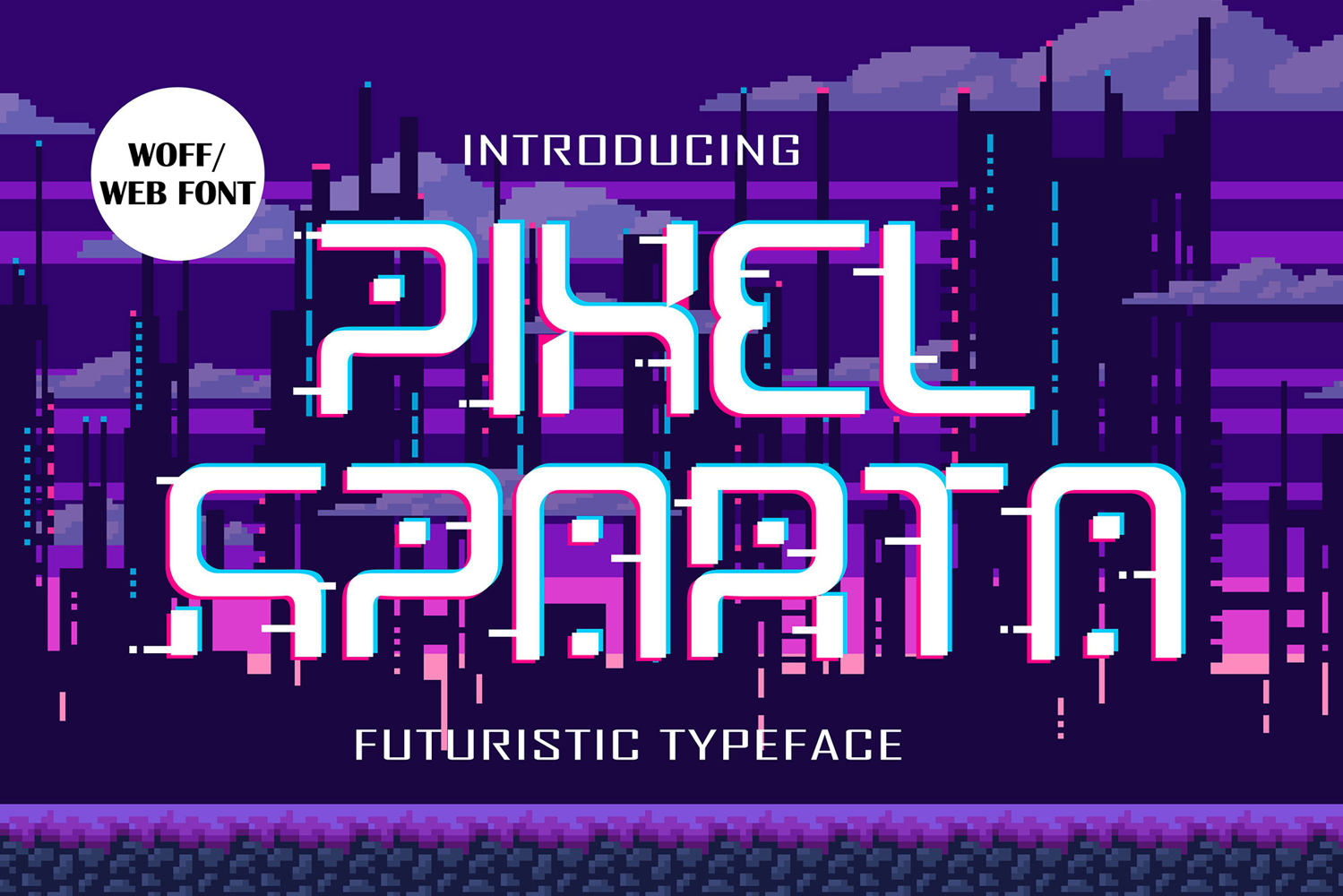
Pixel Sparta | Futuristic Display Webfont WOFF
Pixel Sparta is a futuristic webfont designed to bring bold, digital energy to your online projects. With pixel-inspired details and cyberpunk aesthetics, this font is ideal for websites, streaming overlays, esports teams, and creative portfolios that need a strong futuristic identity.
Optimized for web use, Pixel Sparta renders cleanly across all devices, ensuring your text looks modern and sharp. Perfect for designers who want to create websites with a futuristic, tech-savvy, and stylish personality.